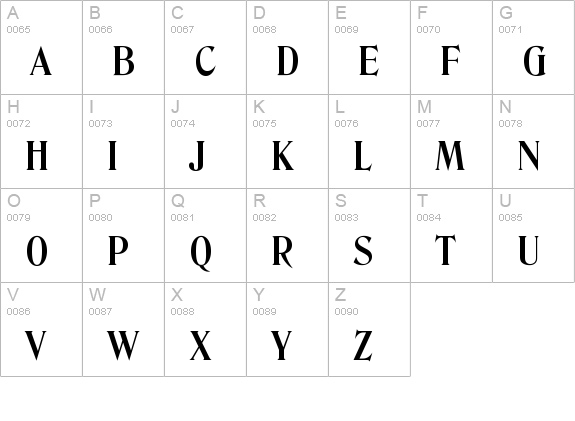
Denver-DemiBold is a sub-bold, structured variant in the Denver typeface family \xE2\x80\x94 well suited to sub-headlines and emphasised passages.
Denver-DemiBold is a modern and sophisticated font that exudes confidence and strength. Its bold and striking design makes it perfect for headlines, logos, and branding materials. The sharp edges and clean lines of Denver-DemiBold give it a sleek and professional look that is sure to make a statement. What's even better is that Denver-DemiBold is available for free download at FontsMarket.com! This means that you can easily access this impressive font and use it for your projects without any cost. Whether you're designing a website, creating marketing materials, or working on a personal project, Denver-DemiBold is a versatile font that will elevate your design to the next level. With its bold style and modern appeal, Denver-DemiBold is a must-have font for any designer looking to add a touch of sophistication to their work. Download it for free today and unleash the power of this stunning typeface in your projects!